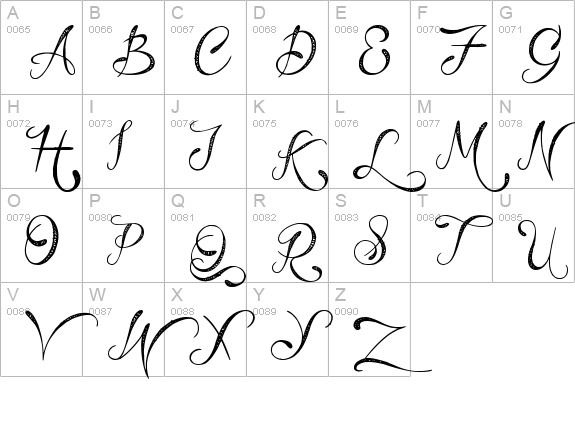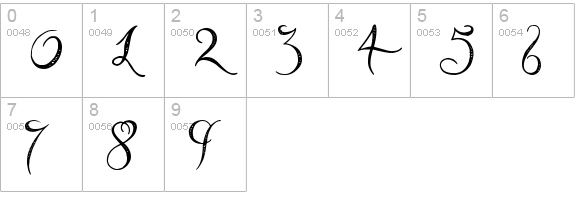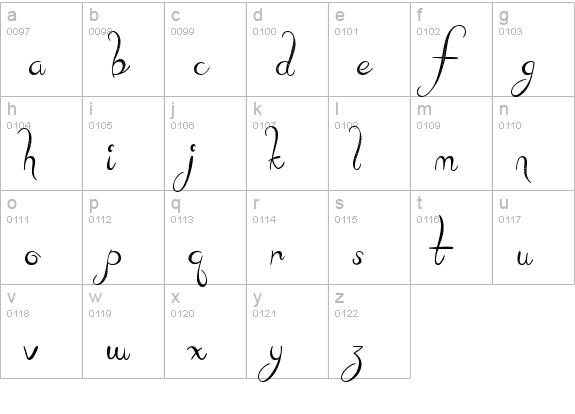
Say a Prayer Font Details
Introducing Say a Prayer, a breathtakingly beautiful font that will transport your designs to a realm of divine elegance. This font encapsulates the essence of serenity and spirituality, making it the perfect choice for projects that require a touch of ethereal grace. Say a Prayer is a meticulously crafted typeface, carefully designed to capture the essence of handwritten calligraphy. Its intricate yet fluid strokes effortlessly blend together, creating a harmonious balance that is both captivating and soothing to the eye. With its versatile character set, Say a Prayer is suitable for a wide range of design applications. Whether you're creating wedding invitations, branding materials, or heartfelt messages, this font will effortlessly elevate your work to new heights of sophistication and charm. And the best part? Say a Prayer is freely available to download at FontsMarket.com. Yes, that's right, you can incorporate this stunning font into your projects without breaking the bank. FontsMarket.com offers a vast collection of high-quality fonts, and Say a Prayer is among the gems that you can access free of charge. Unleash your creativity and infuse your designs with a touch of divine inspiration with Say a Prayer. Download this font today and watch as your designs come to life with an unparalleled sense of elegance and grace.